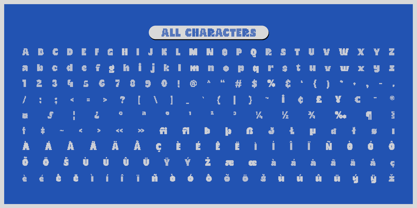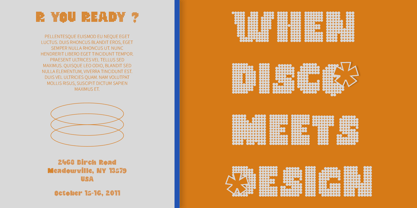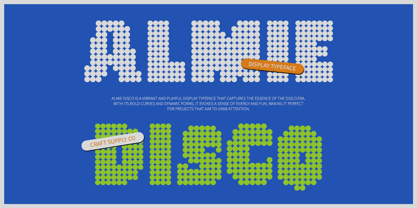
Almie Disco
by Craft Supply Co
Almie Disco – Funky Modern Sans Serif Font
Funky and Playful Design
Almie Disco is a bold modern sans serif font that radiates funkiness, bringing a vibrant energy to your designs. Featuring thick letterforms that are both eye-catching and expressive, this font is the perfect embodiment of the lively spirit of disco culture.
Capturing the Excitement of Disco
Adorned with a vibrant disco effect, Almie Disco captures the essence of excitement and celebration. Its playful design is ideal for projects that aim to evoke feelings of joy and nostalgia, making it perfect for branding, event posters, and creative endeavors that require a touch of fun.
Dynamic Visual Appeal
With its striking appearance, Almie Disco ensures that your message stands out in any context. The bold and dynamic nature of this font adds a captivating touch to your designs, making it suitable for anything from music events to party promotions.
Versatile for Various Applications
Whether you’re working on branding materials, promotional graphics, or digital media, Almie Disco is a versatile choice that can elevate any project. Its distinctive style makes it suitable for both playful and professional contexts, seamlessly blending fun with creativity.